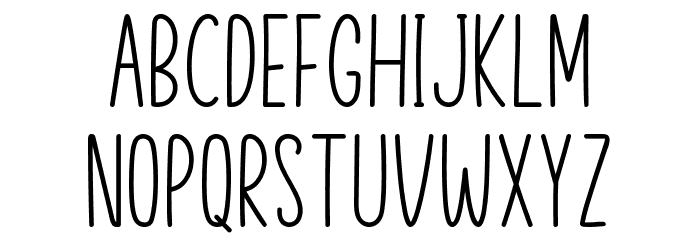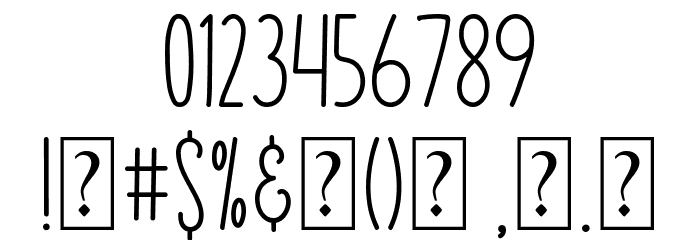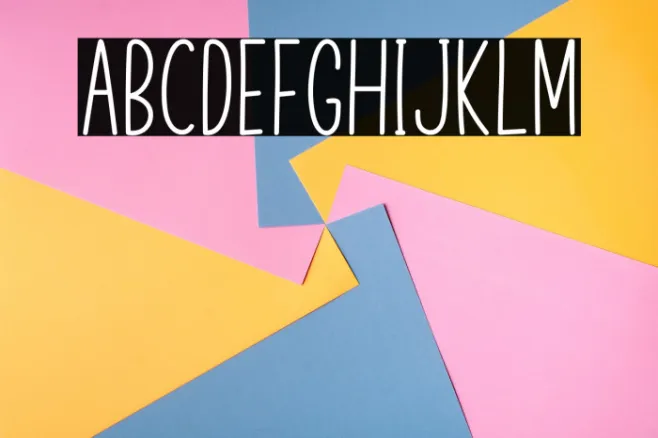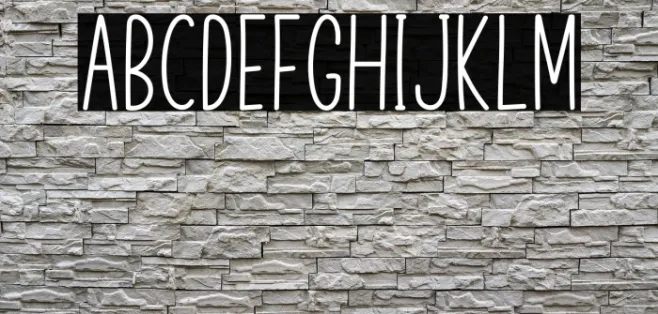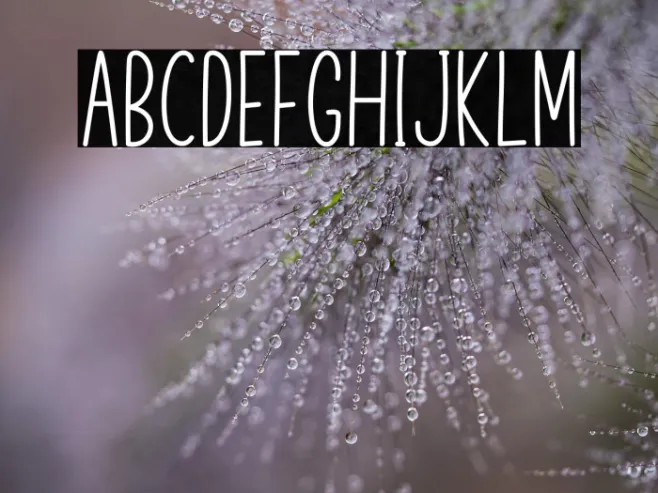
Skinny Flower Font
This font features a playful and whimsical design, characterized by its tall, narrow letters with rounded edges. The strokes are consistent in width, giving it a clean and uniform appearance. The uppercase and lowercase letters maintain a similar height, adding to its quirky charm. The numerals and special characters follow the same slender style, ensuring a cohesive look across all characters. This font exudes a casual and friendly vibe, making it suitable for creative and informal projects.
A playful, narrow font with rounded edges and consistent stroke width.
- Font: Skinny Flower
- Proposed Projects: Ideal for greeting cards, children's books, playful branding, and creative posters.
- Category: Handwritten
- Overall Style: Casual
- Use Case: Headlines, Logos, Informal Text